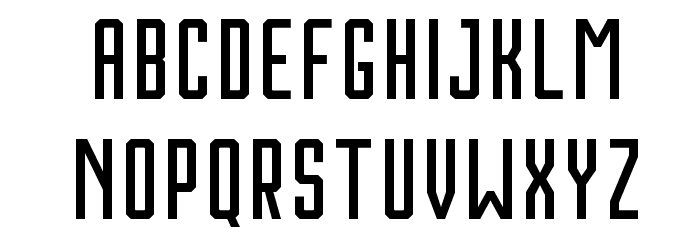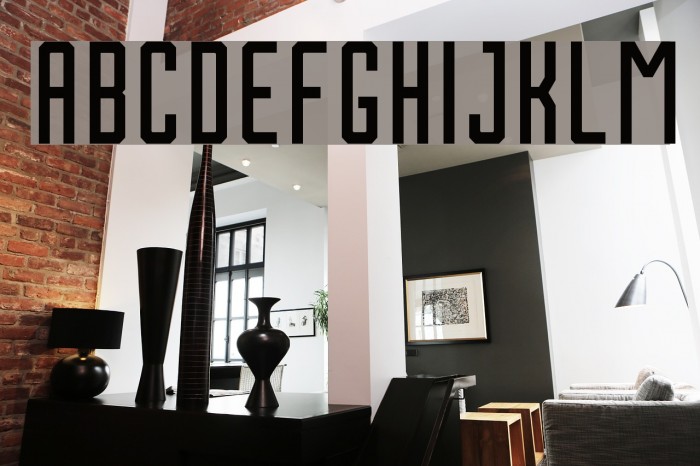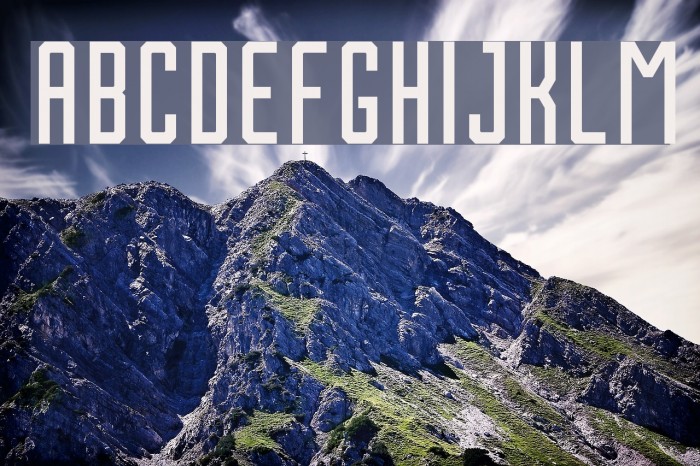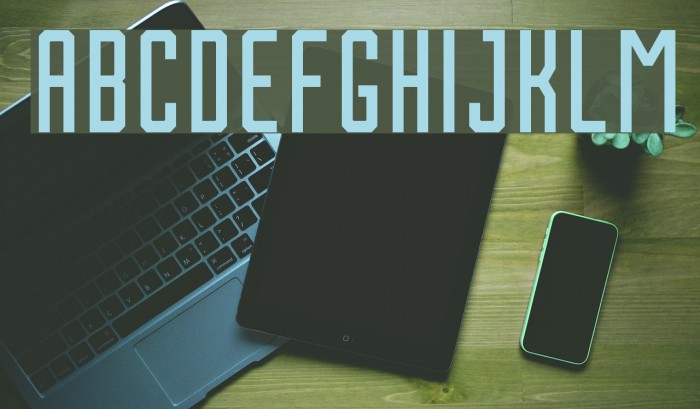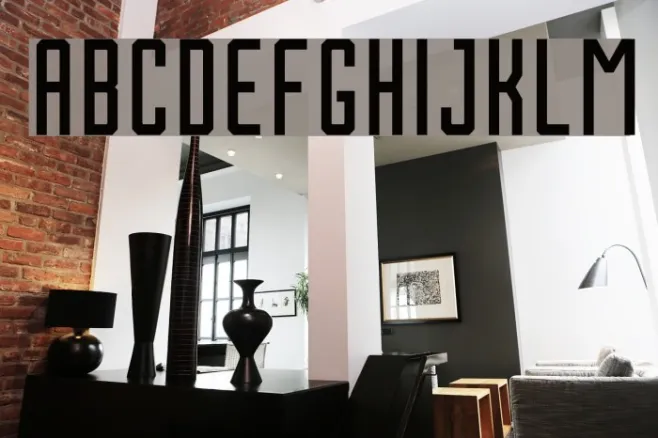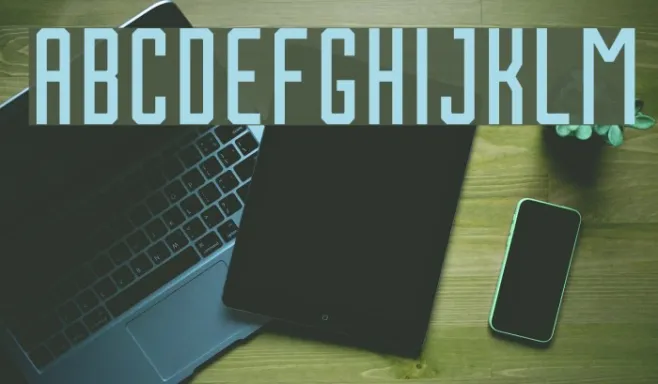
Houston Font
This font features a bold, geometric design with a strong presence, characterized by its tall, narrow letters and sharp angles. The uppercase letters are uniform in height, creating a cohesive and structured appearance. The font's clean lines and modern aesthetic make it suitable for a variety of design applications. Its distinctive style is both eye-catching and versatile, allowing it to stand out in headlines while maintaining readability. The consistent stroke width throughout the characters adds to its boldness, making it an excellent choice for impactful designs.
A bold, geometric font with tall, narrow letters and sharp angles.
- Proposed Projects: Ideal for branding, posters, headlines, and any design requiring a modern, impactful look.